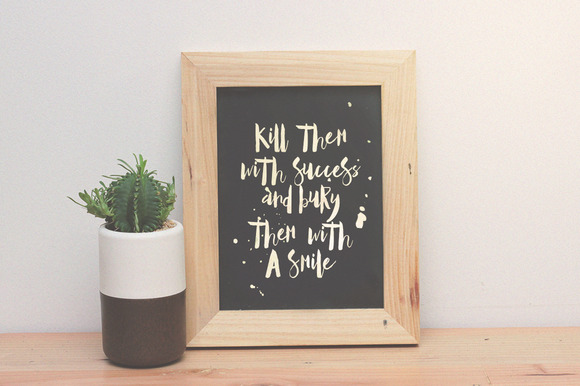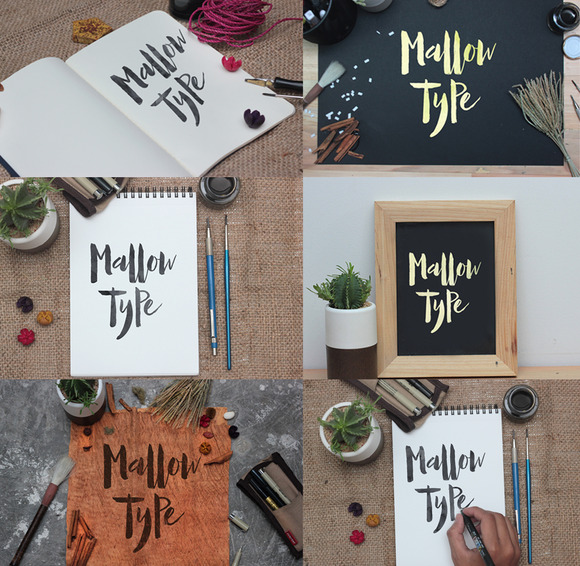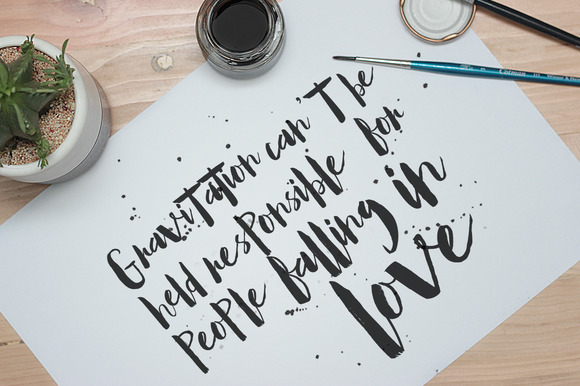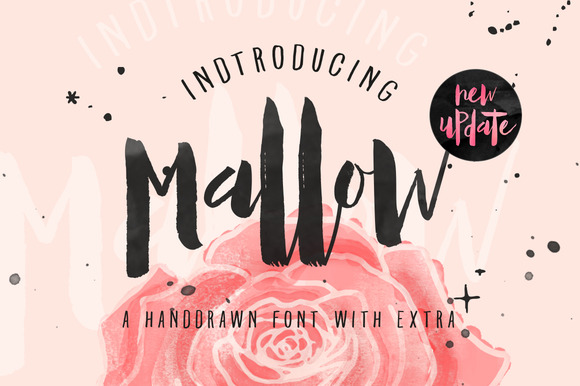
Mallow Typeface & EXTRA Mockup
Mallow typefaces was created as font purpose, withimperfect, hand painted characters and an irregular baseline. this fonts have dancing baseline to ensure that modern style. thin stroke and fat in this fonts impresses the harmony..and support miltilanguage
Features:
• Uppercase
• Lowercase
• Numerals & Punctuations
• Accents (Multilingual characters)